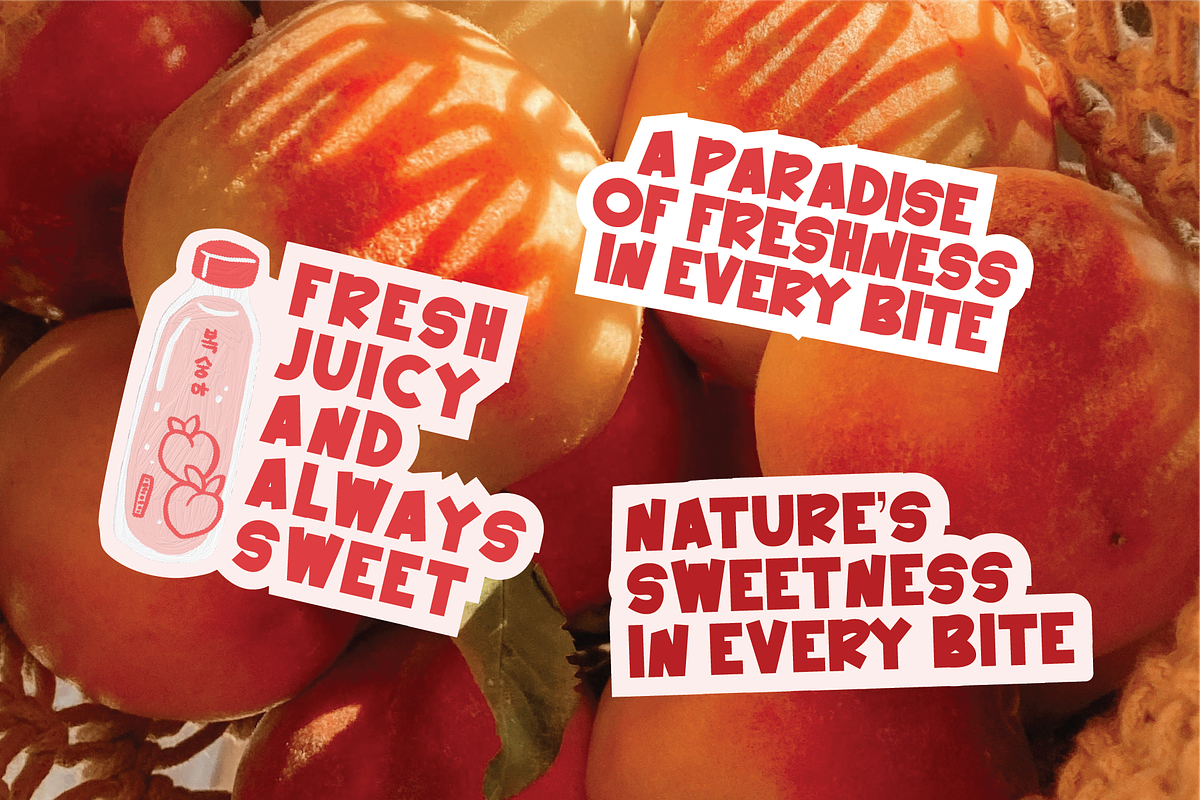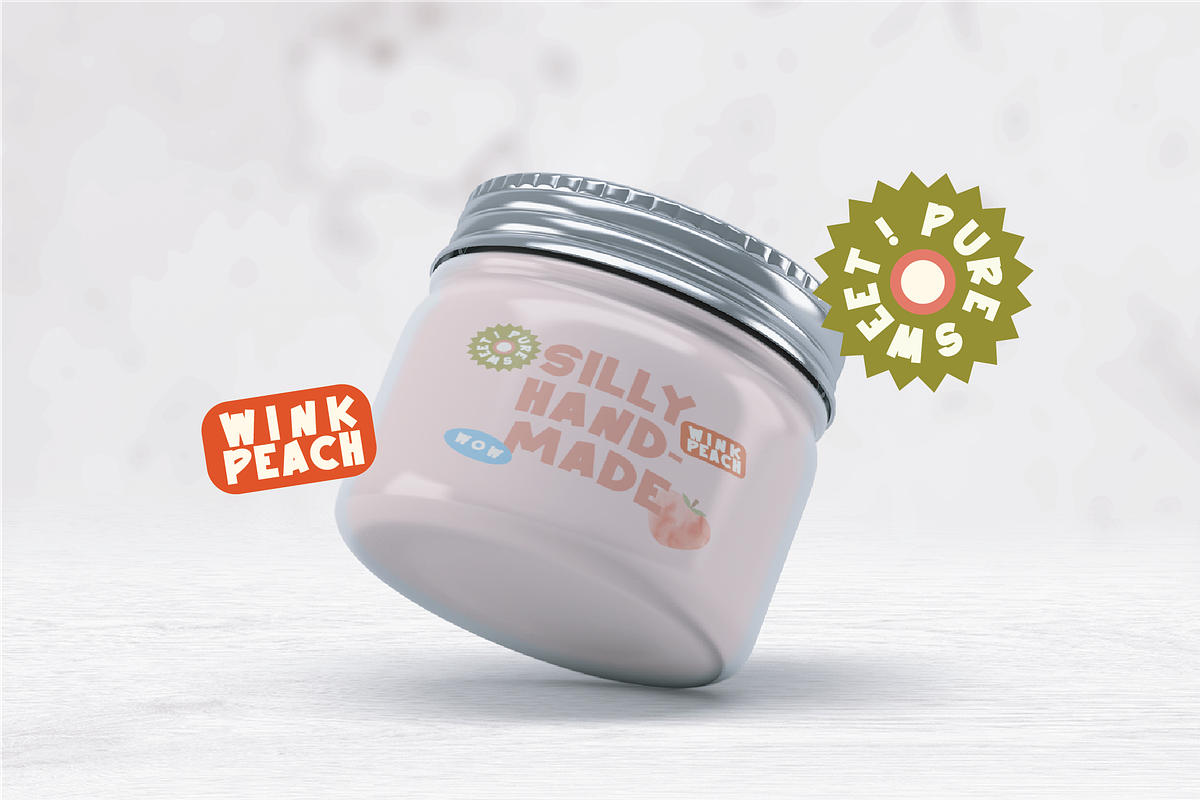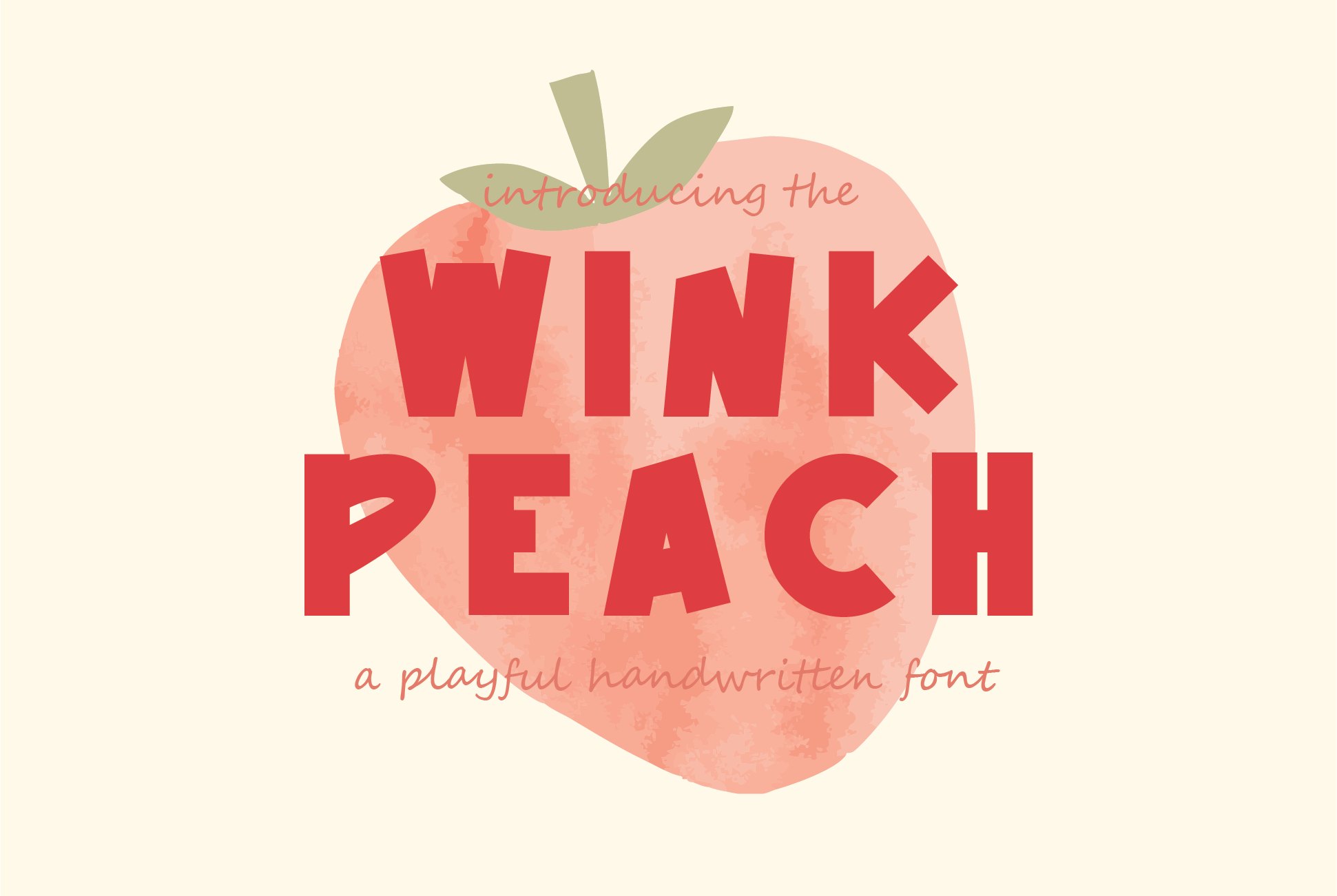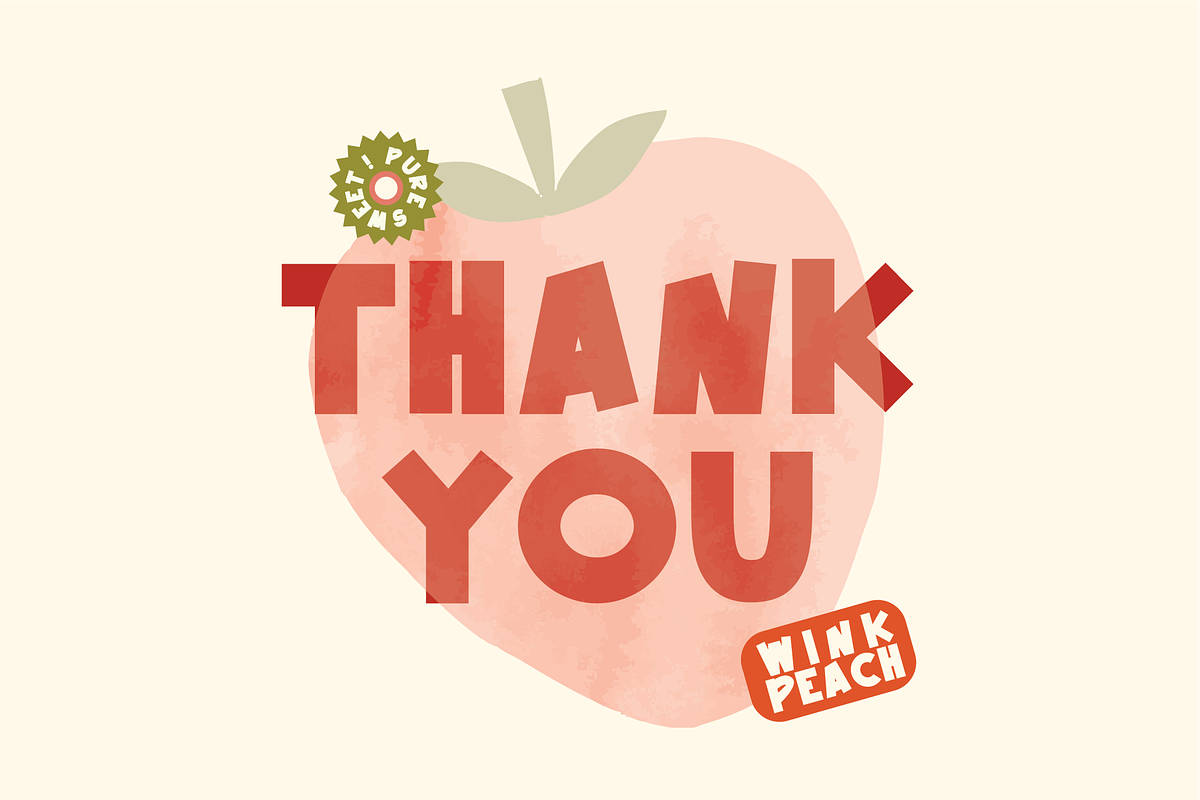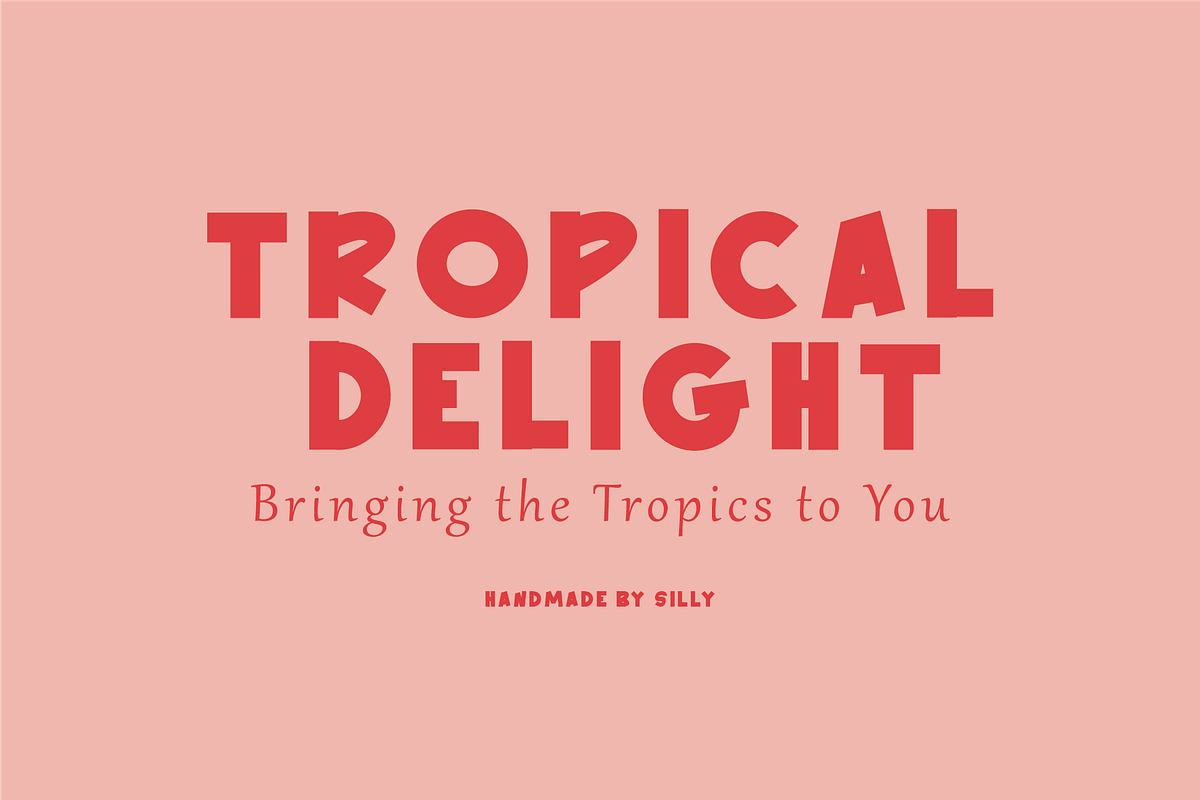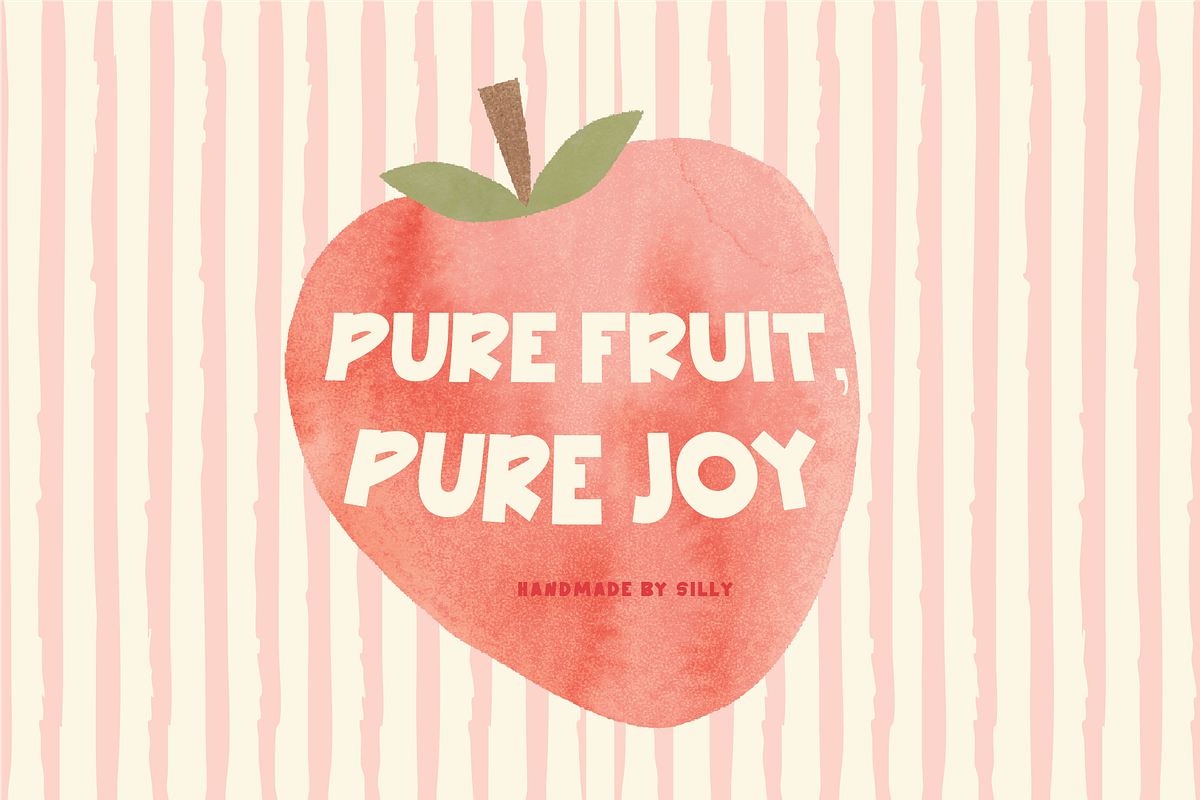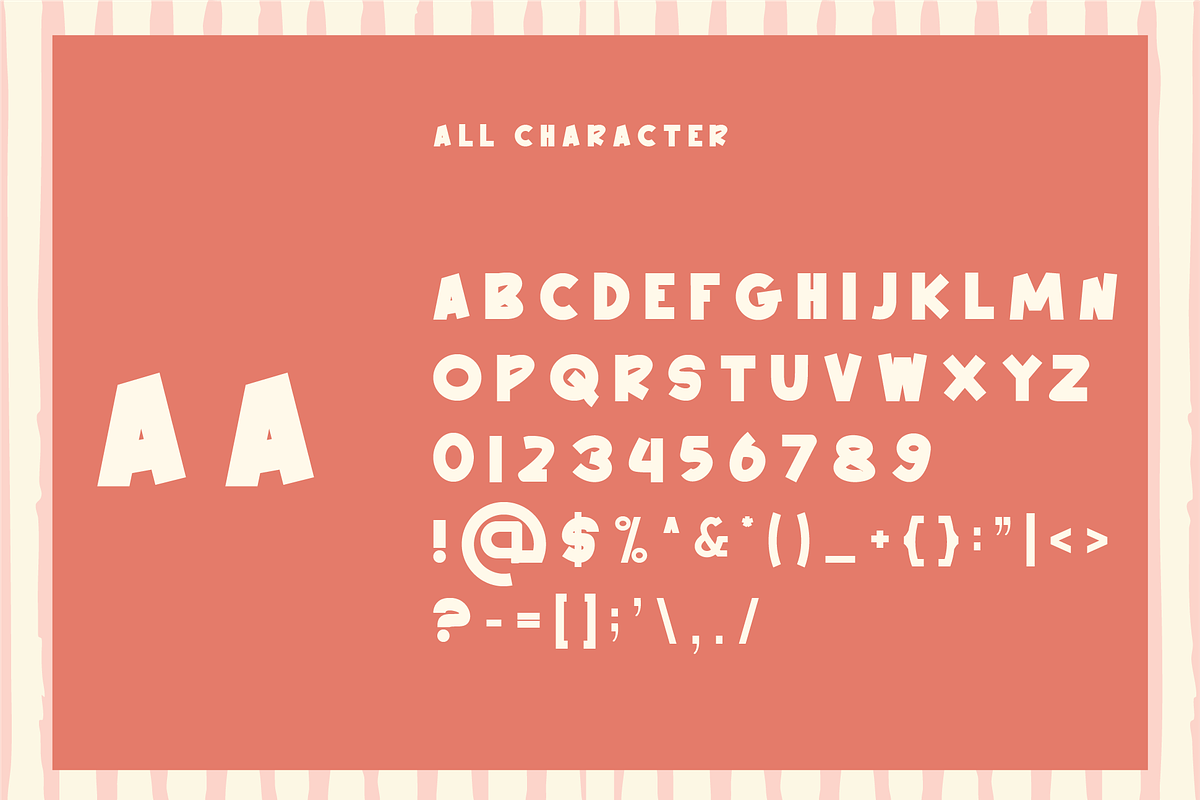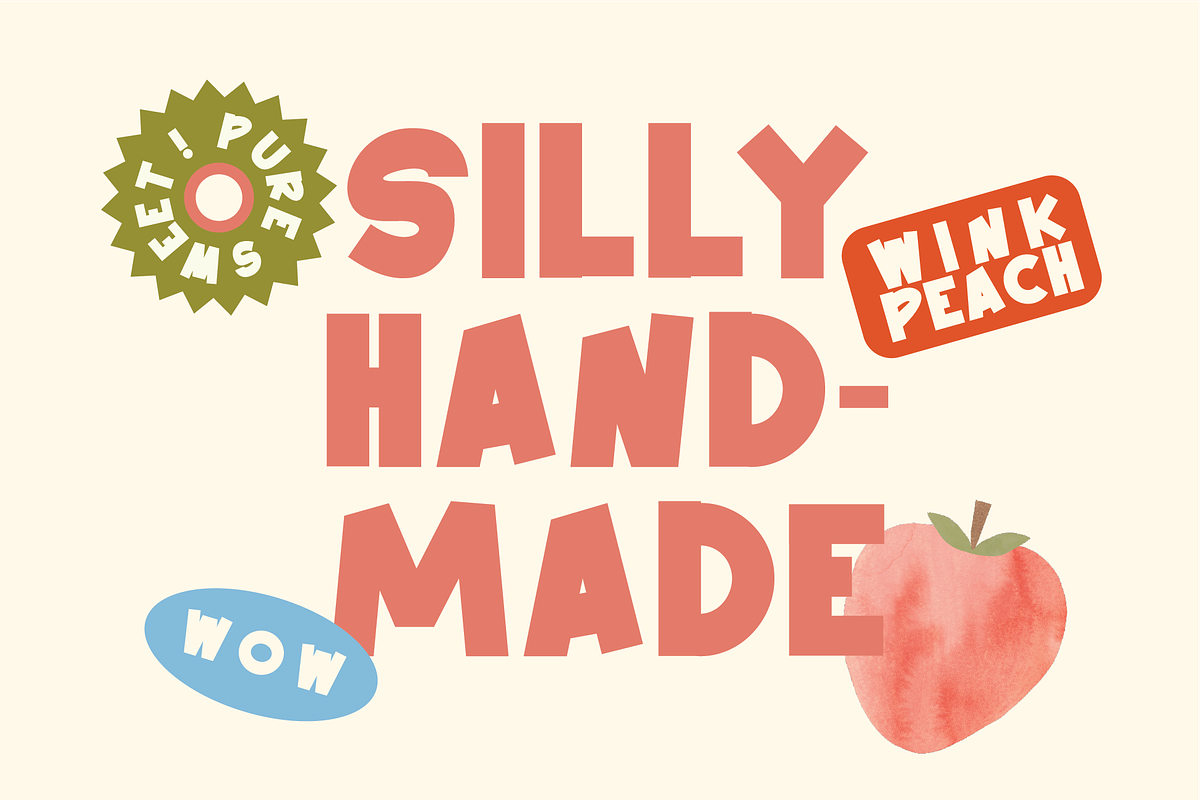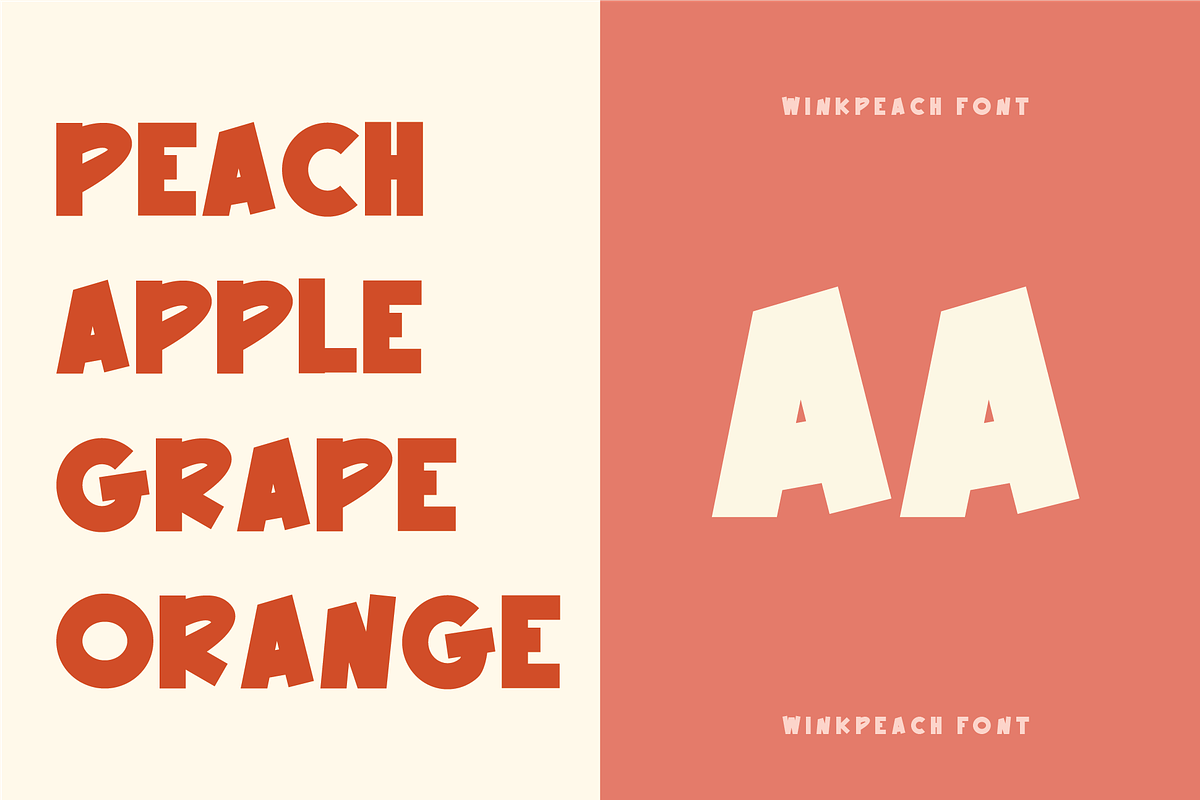
Winkpeach - Playful Handwritten Font
Winkpeach font in the features bold, blocky letters with a playful, slightly rounded style. The characters are thick and solid, giving the text a strong, impactful appearance
- Numbers, marks and symbols